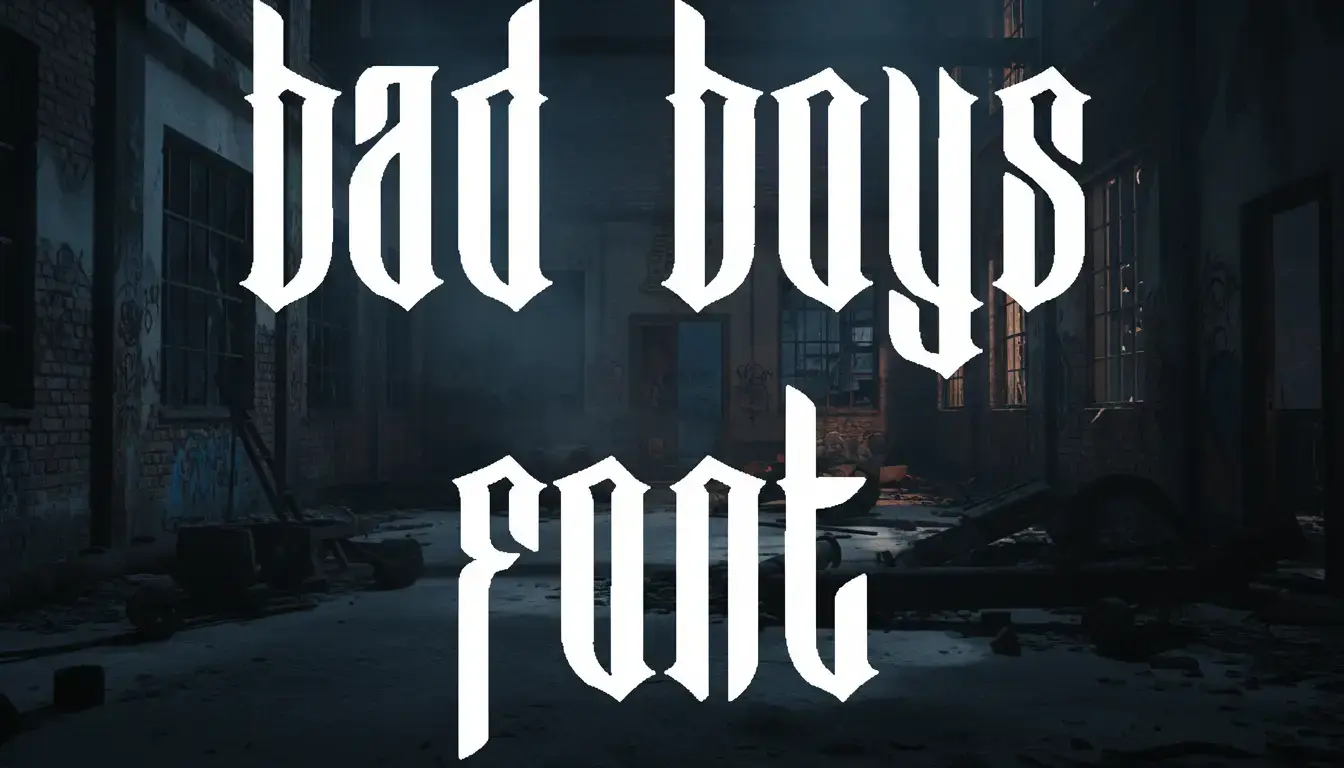
Bad Boys Font
Bad Boys is a gothic font. Sharp, dark and dramatic, it follows the blackletter tradition of old European manuscripts. It's a free download, and you can try it with your own text in the preview above first.
What You Can Type With Bad Boys
You get every letter from A to Z in both cases and all the numbers from 0 to 9, which means Bad Boys can handle full sentences, dates and prices. Common punctuation such as &, !, ? and @ is included as well. It also has the accented letters you need for Spanish, French, German, Portuguese and Italian. On top of that, it includes Greek and Cyrillic characters.
Where Bad Boys Works Best
Think of Bad Boys for tattoos, metal band logos and dark fantasy titles. Blackletter is very hard to read in all caps, so type in normal upper and lowercase.
Does Bad Boys support accented letters?
Yes. Bad Boys includes the accented letters needed for Spanish, French, German, Portuguese and Italian, so it works for more than just English.